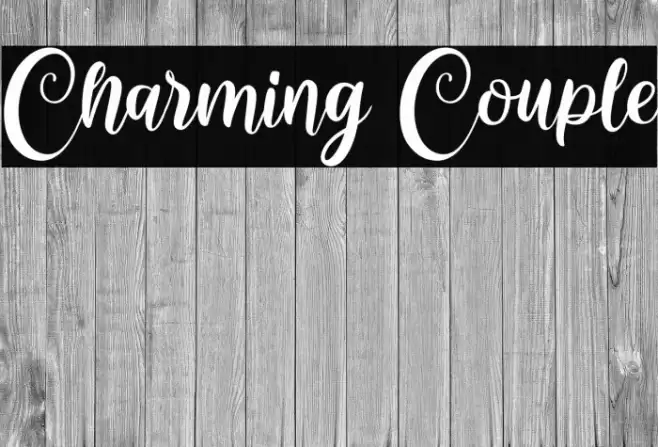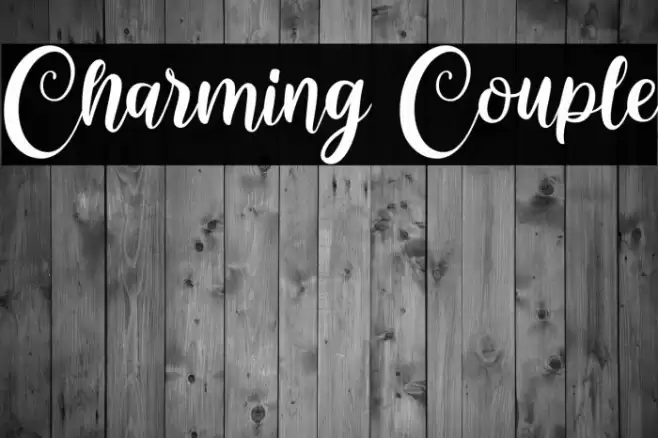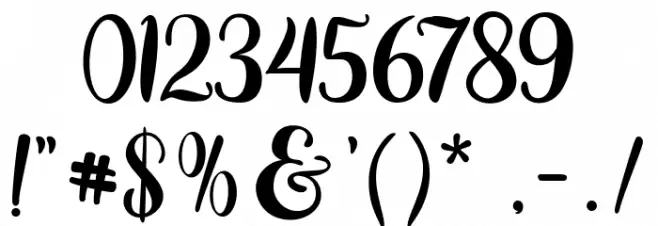
Charming Couple Font
Charming Couple Description
This font features an elegant and flowing script style, characterized by its decorative swirls and loops that add a touch of sophistication and romance. The uppercase letters are particularly ornate, with intricate curls that enhance their visual appeal. The lowercase letters maintain a consistent flow, offering a harmonious balance between readability and artistic flair. Numbers and special characters are designed to complement the overall aesthetic, ensuring a cohesive look across all text elements. The font's design is perfect for creating a sense of elegance and charm, making it suitable for a variety of creative projects.
An elegant script font with decorative swirls and loops, perfect for romantic and sophisticated designs from Regular fonts.
- Proposed Projects: Ideal for wedding invitations, greeting cards, branding, and any project requiring a touch of elegance and romance.
- Use Case: Logos, Invitations, Greeting Cards